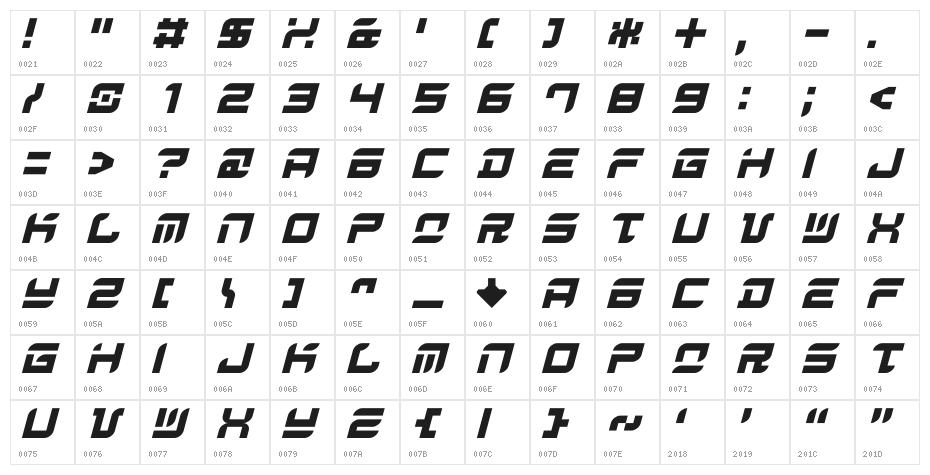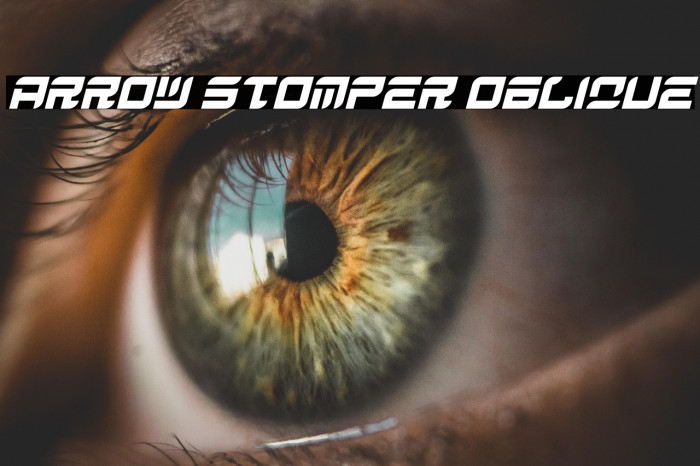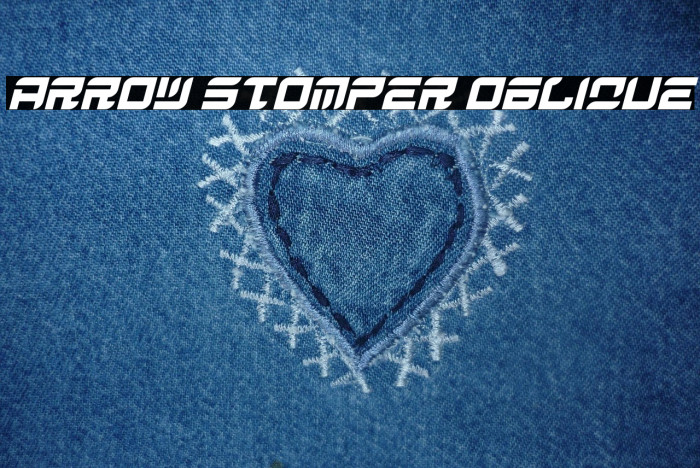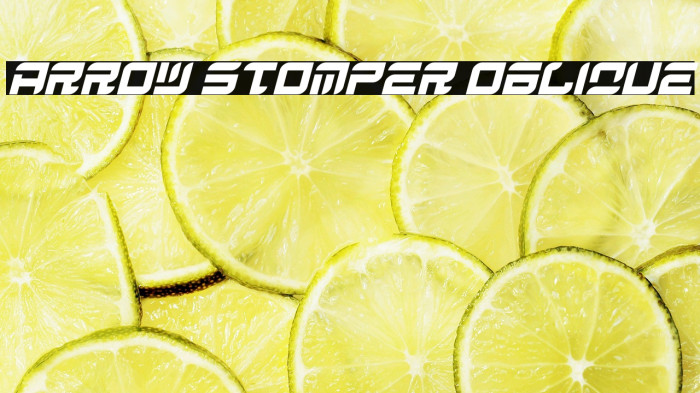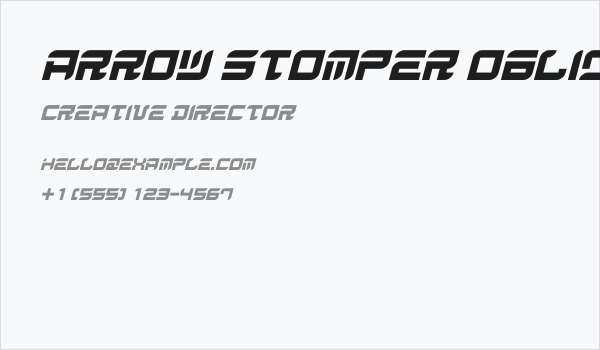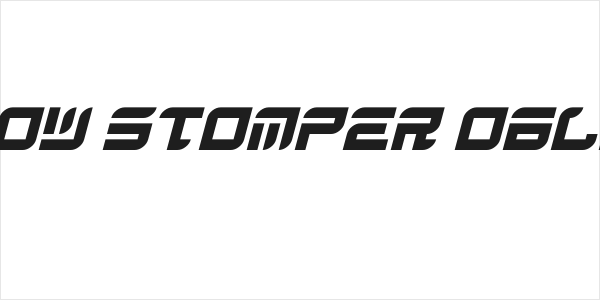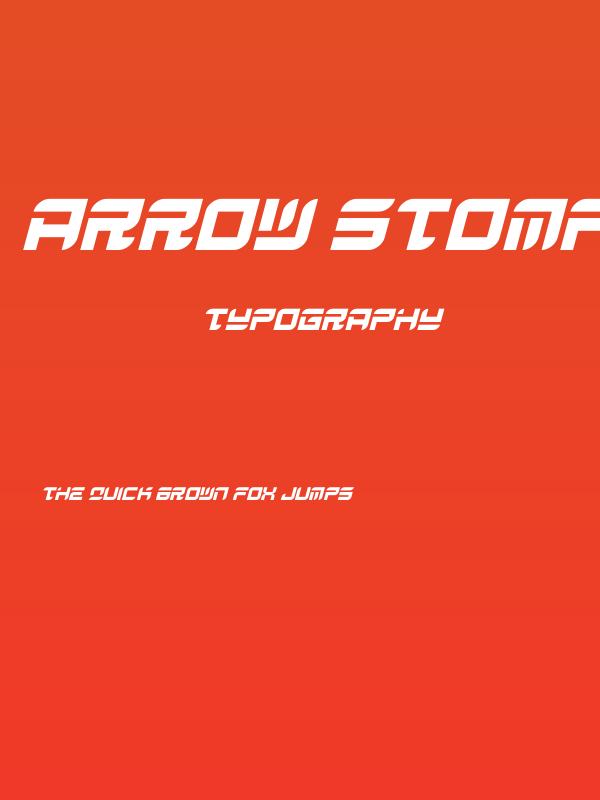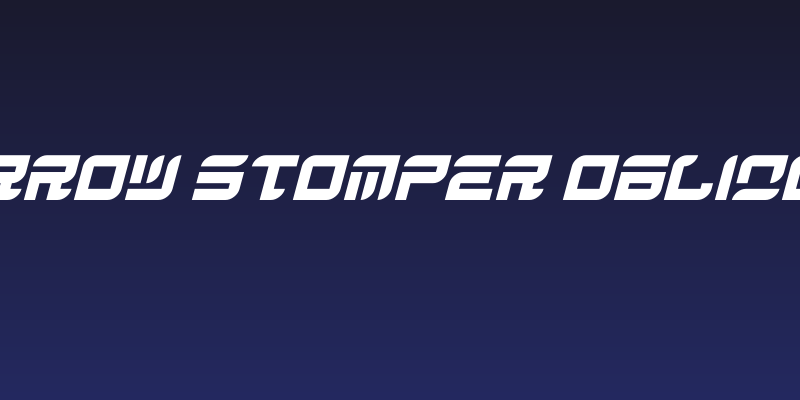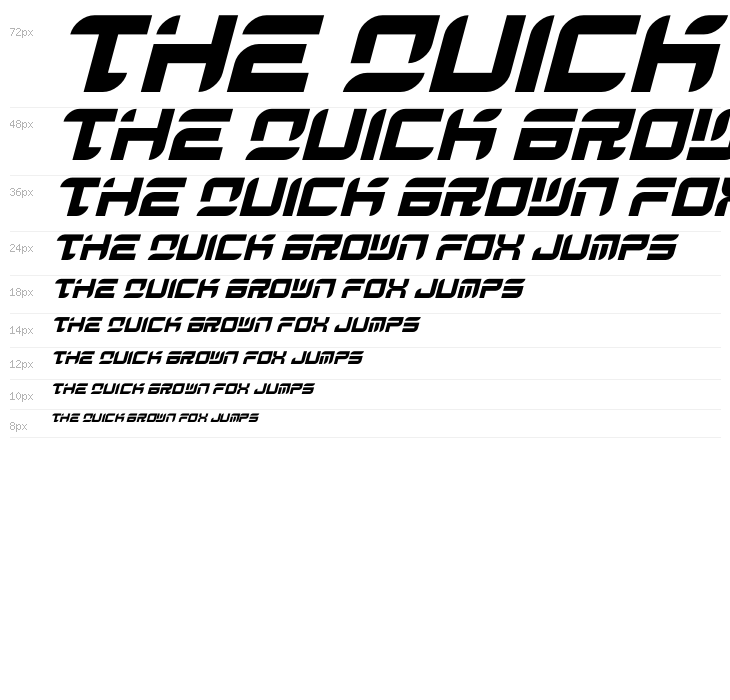
Arrow Stomper Oblique Font
Arrow Stomper Oblique Description
This font features a bold, futuristic design with sharp angles and a dynamic slant, giving it a sense of motion and energy. The characters are wide and robust, with a consistent stroke thickness that adds to its bold appearance. The angular cuts and geometric shapes create a modern and edgy look, making it stand out in any design. The uppercase and lowercase letters maintain a uniform style, while the numbers and special characters complement the overall aesthetic. Its distinctive style is ideal for projects that require a strong visual impact.
| Proposed Projects | Ideal for sports branding, tech logos, video game titles, and futuristic posters. |